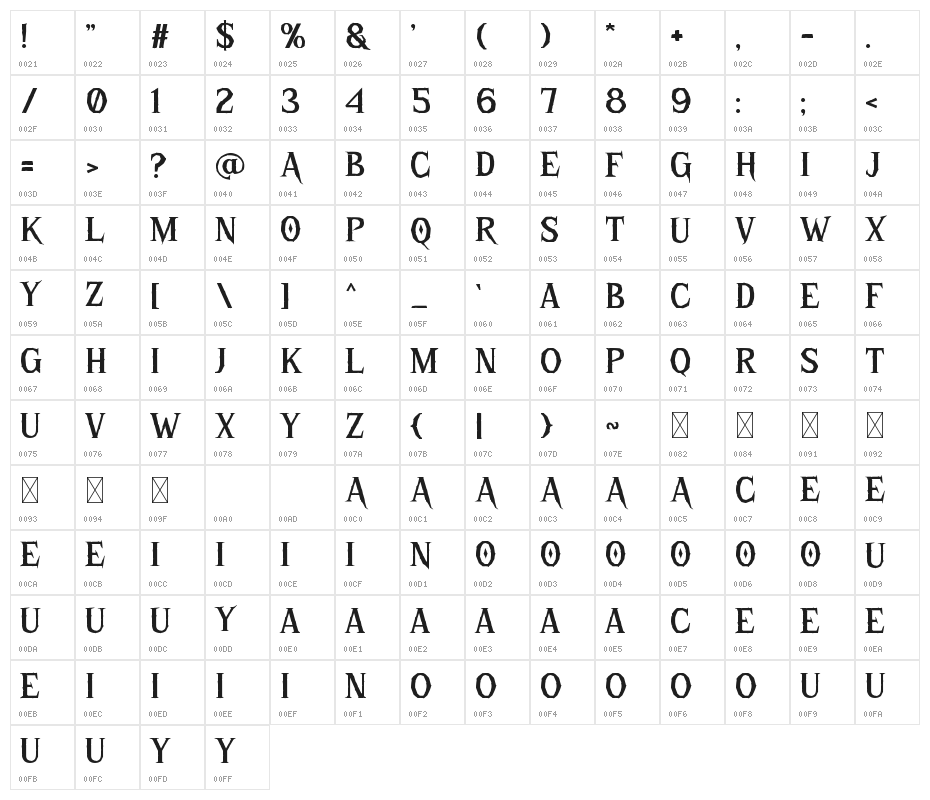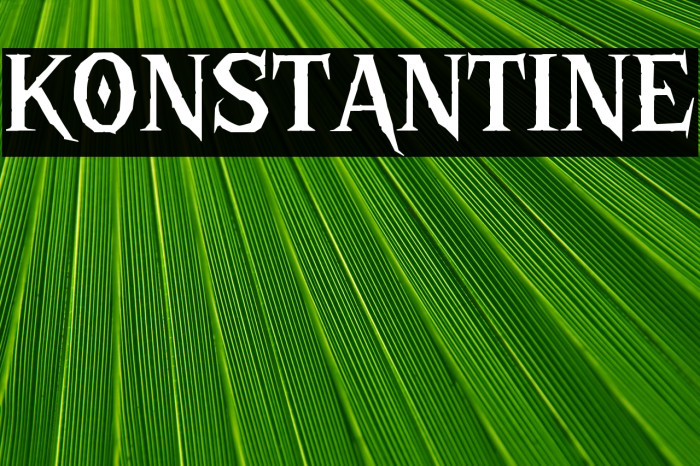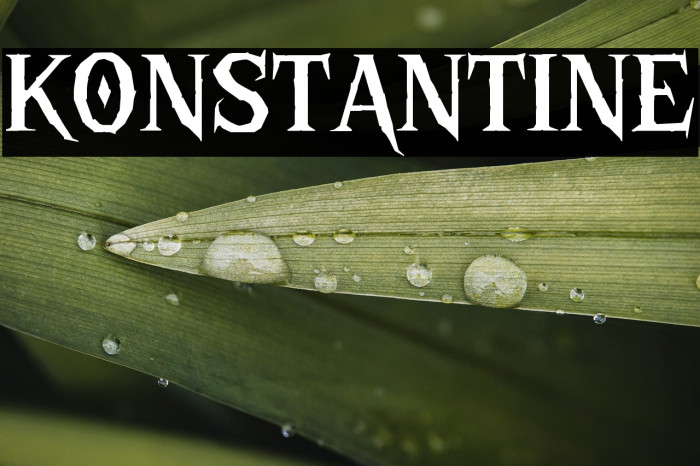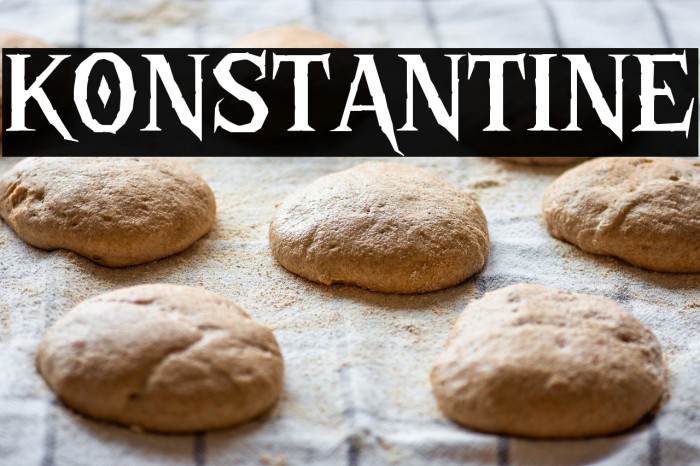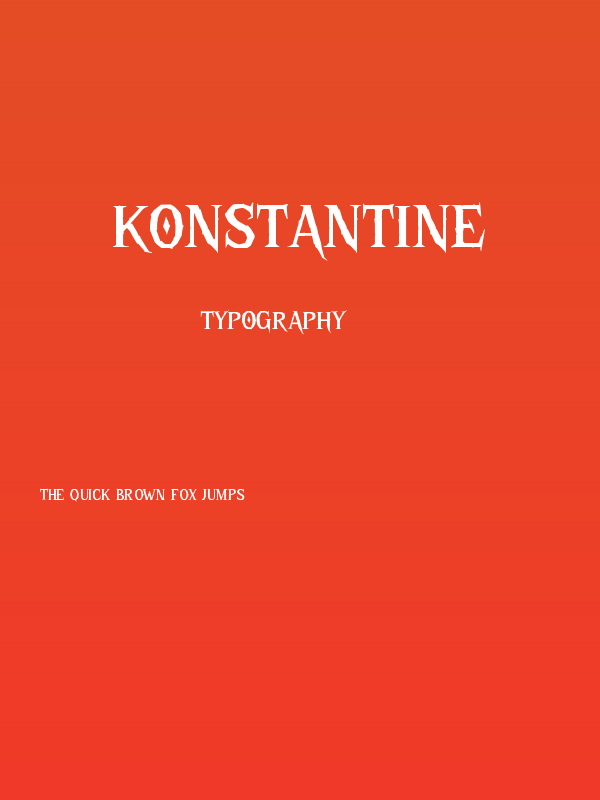
KONSTANTINE Font
KONSTANTINE Description
This font features a bold and striking design with sharp, angular edges that give it a distinct and edgy appearance. The characters are crafted with a high level of detail, incorporating pointed serifs and a slightly distressed texture that adds to its dramatic flair. The uppercase and lowercase letters maintain a consistent style, while the numerals and special characters complement the overall aesthetic. The font's unique style makes it suitable for projects that require a bold and impactful visual statement.
| Proposed Projects | Ideal for use in movie posters, album covers, video game titles, and branding that requires a dramatic and impactful look. |